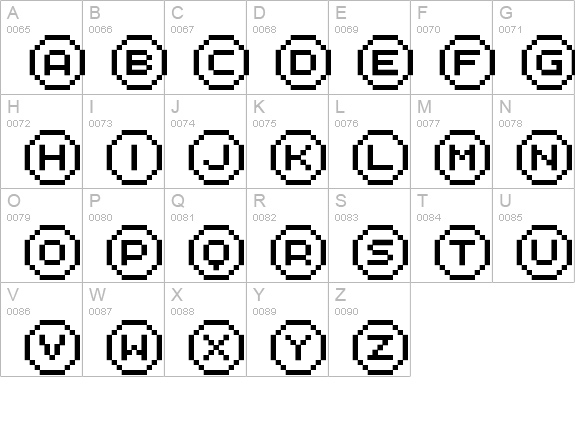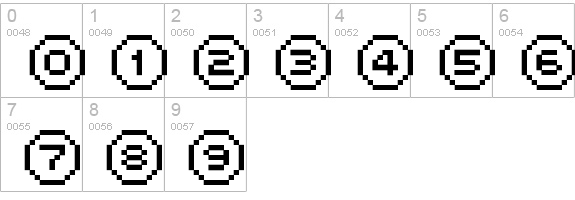
FFF Interface07 Font Details
The FFF Interface07 font is a modern, sleek typeface that exudes a sense of sophistication and professionalism. With its clean lines and sharp edges, this font is perfect for creating a sleek and contemporary look in your designs. Whether you are working on a branding project, website design, or any other creative endeavor, FFF Interface07 will add a touch of elegance to your work. What's even better is that this font is available for free download at FontsMarket.com. This means that you can easily access and use this versatile font in your projects without any additional cost. Don't miss out on the opportunity to enhance your designs with the stylish FFF Interface07 font today!